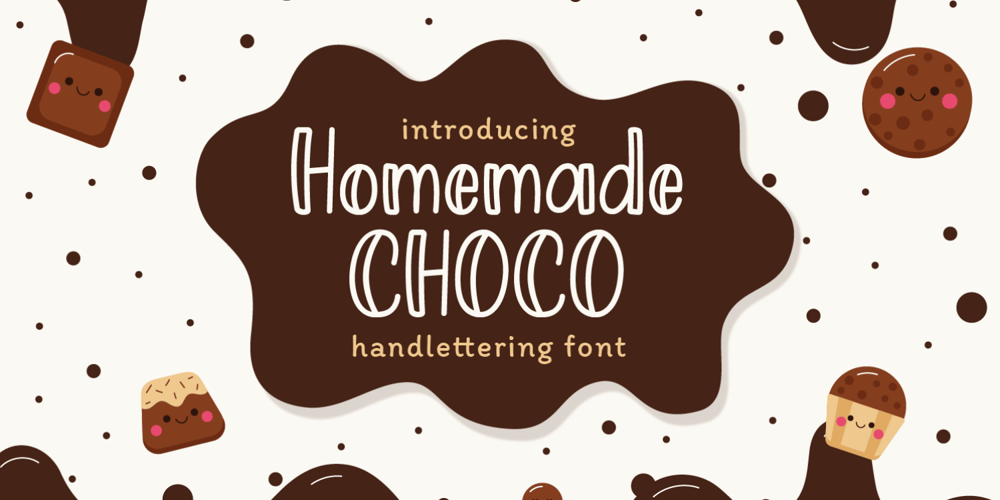
Homemade Choco
Homemade Choco font
Homemade Choco Font Family was designed by Miftahul Habib and published by Tlatous Type. Homemade Choco contains 1 styles and family package options. Introducing Homemade Choco by TlatoustypeHomamade Choco is a Monoline handwritten Font.Homemade Choco is a cute, quirky and fresh handwritten font. It is ideal for holiday-themed greeting cards and for any crafting project that requires a sweet, romantic touch.Homemade Choco also multilingual support.Enjoy the font, feel free to comment or feedback, send me PM or email.Thank you!